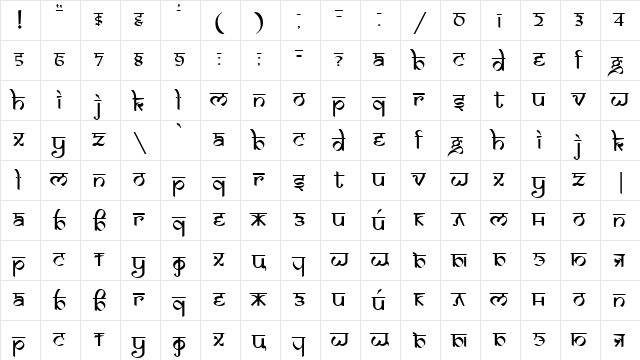
DS Izmir Normal
| Designer | Dubina Nikolay | D-Studio (Moscow) |
Design Context for DS Izmir Typeface
DS Izmir is a composed and adaptable typeface that performs quietly and consistently across a wide range of design contexts.